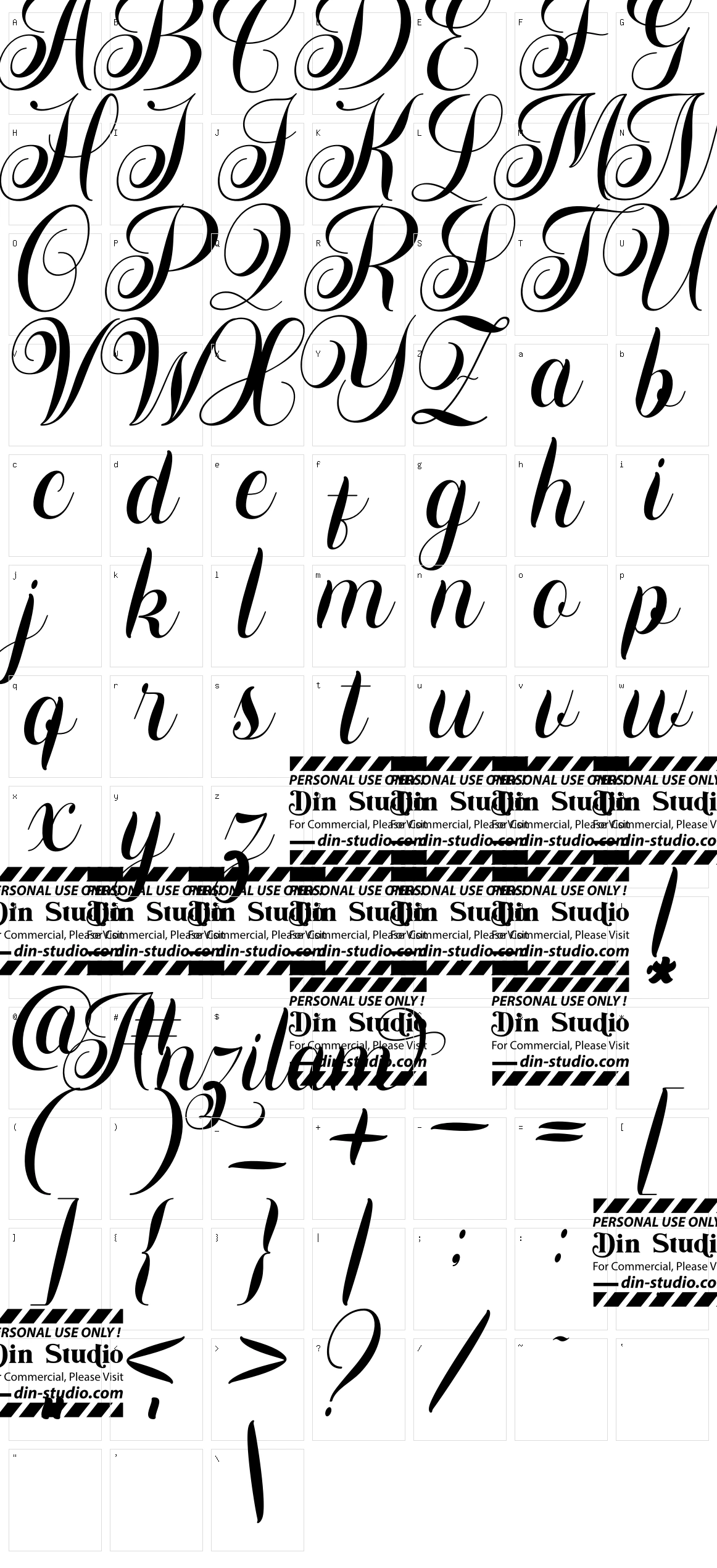
The free font Anzilam is carefully designed by Din Studio, showcasing a thoughtful balance of creativity and usability and falls under the Script font style. When you download the ZIP file, it contains only 312.35 KB of font files, making it lightweight and quick to download. Please review the license details below to understand permitted usage and distribution rights. If license information is not available, we recommend using this font for personal projects only or contacting the author directly for commercial usage permissions.